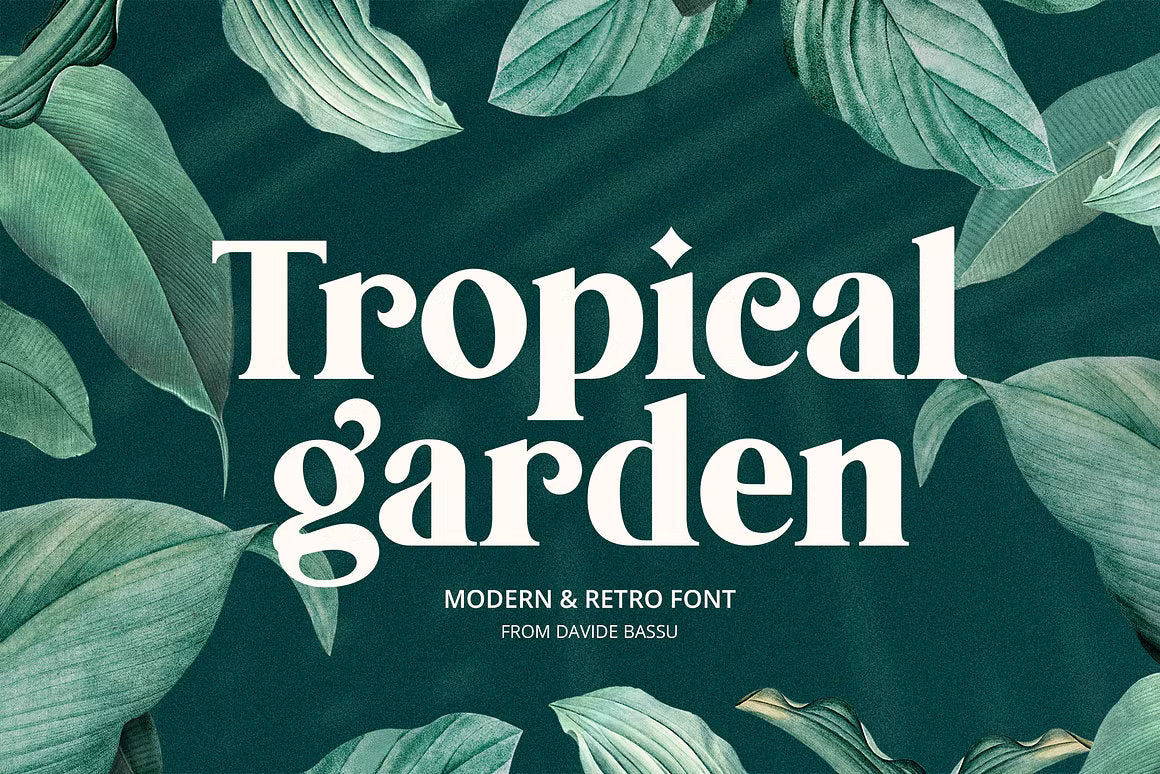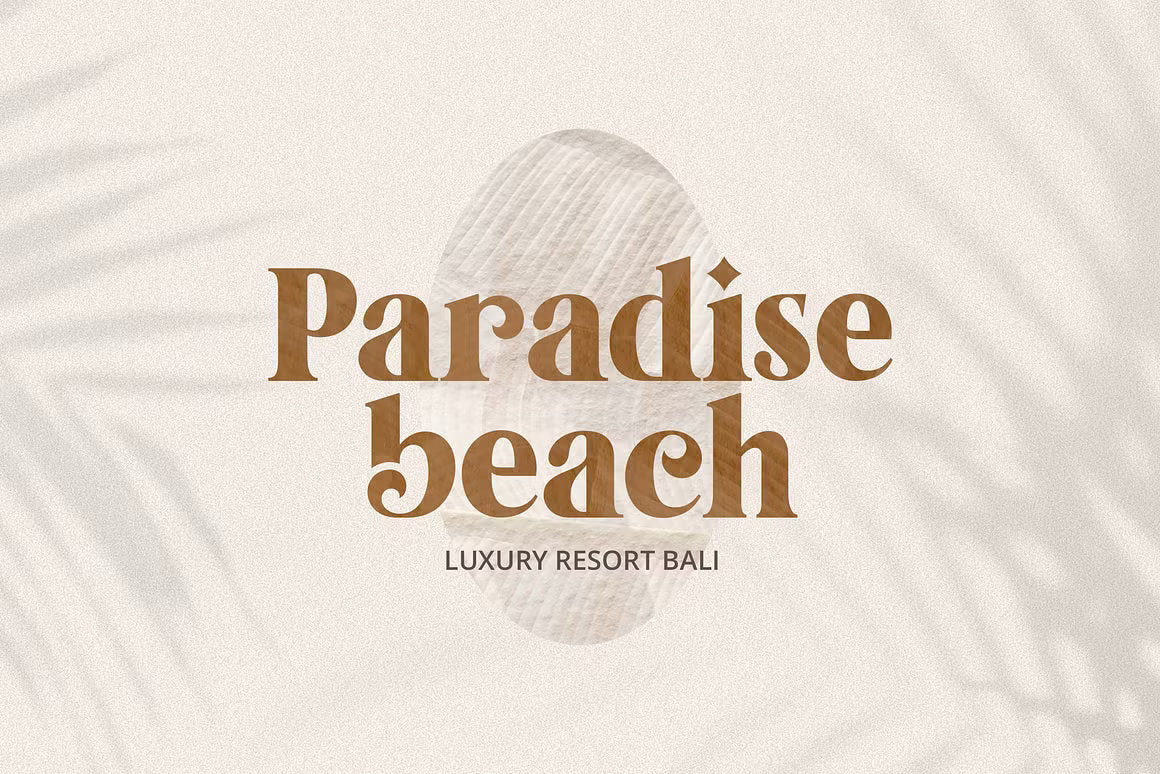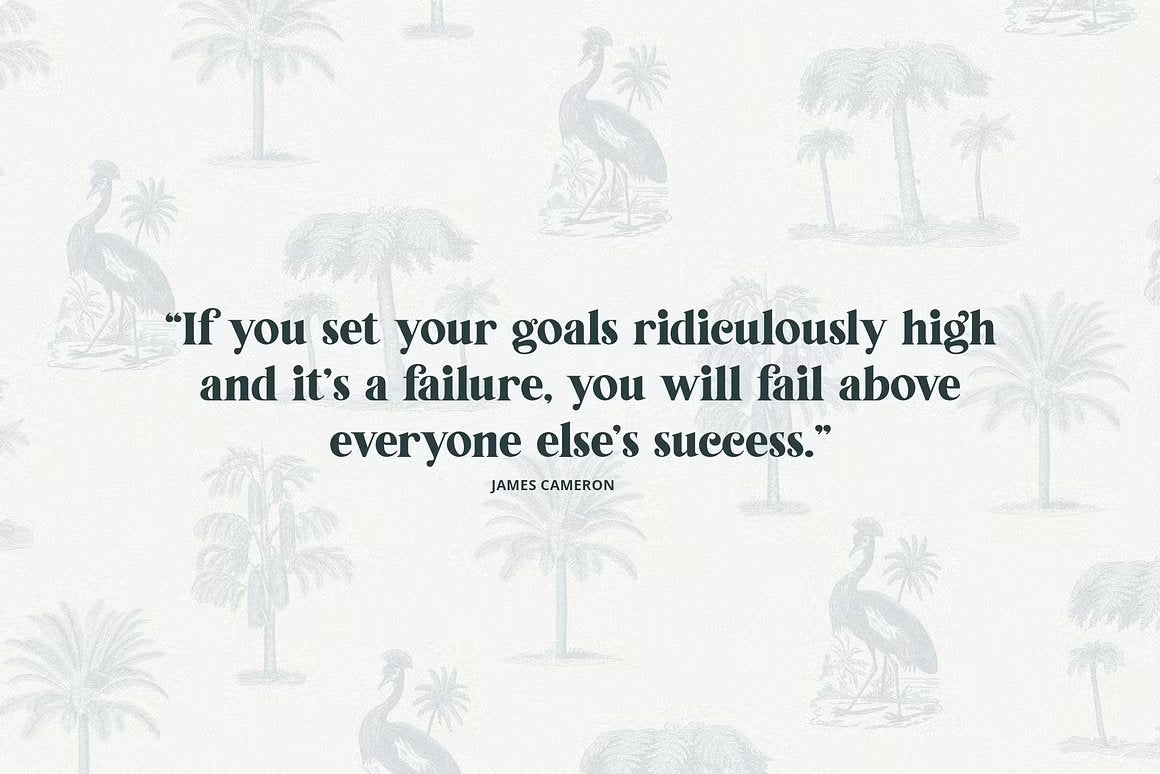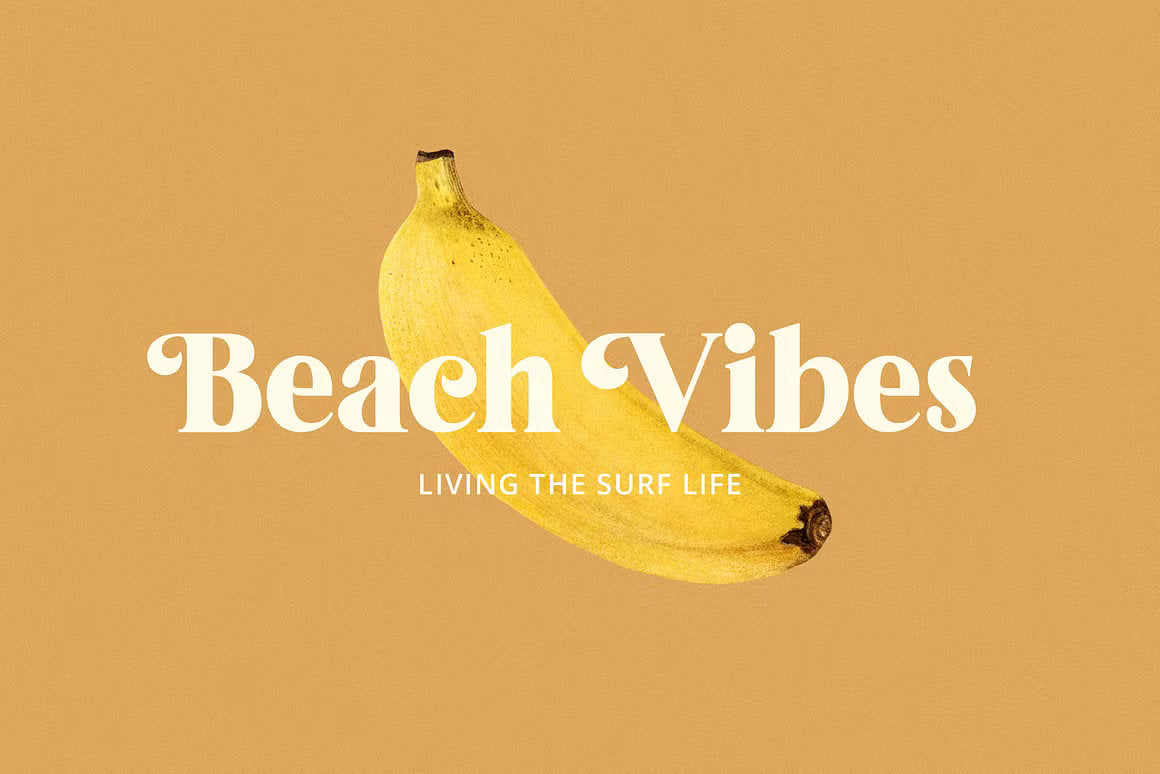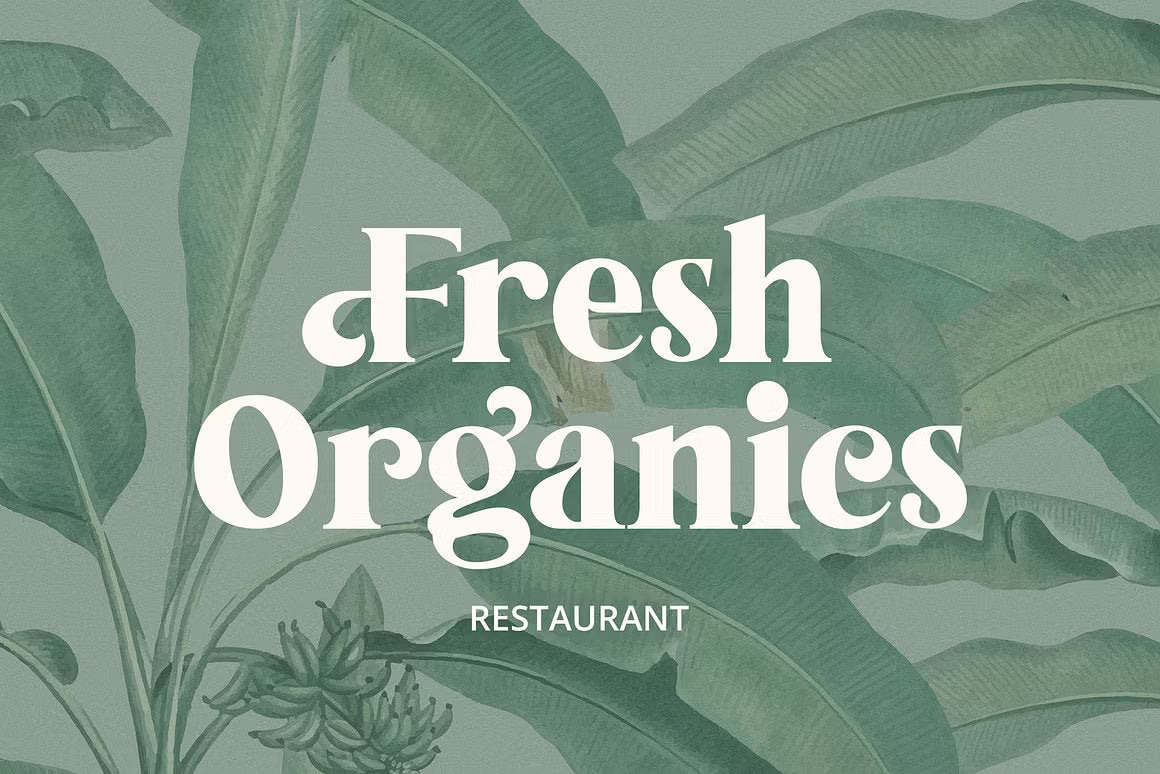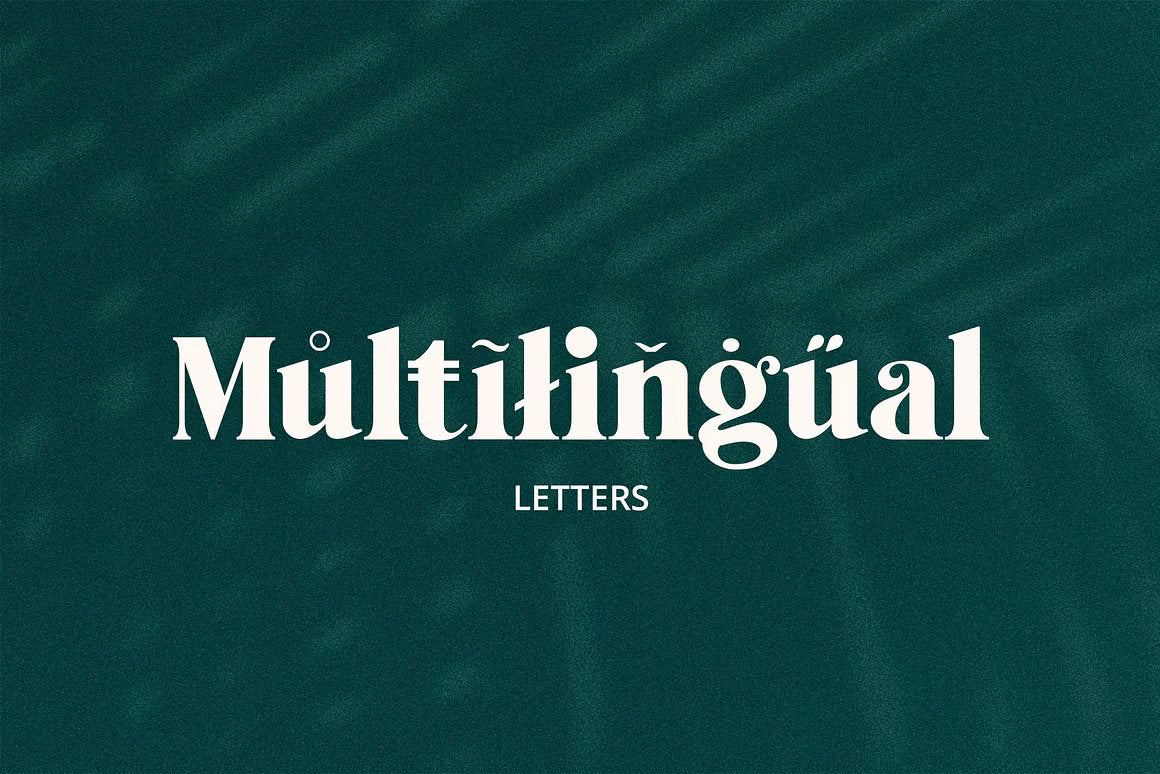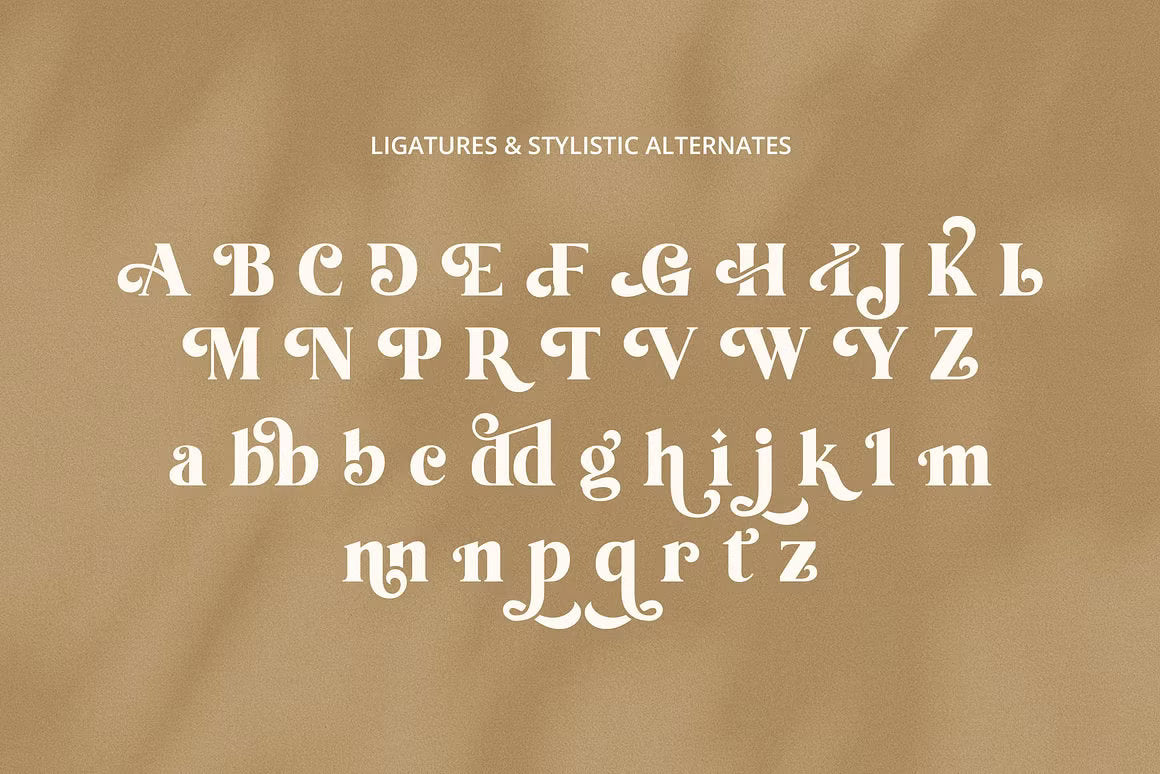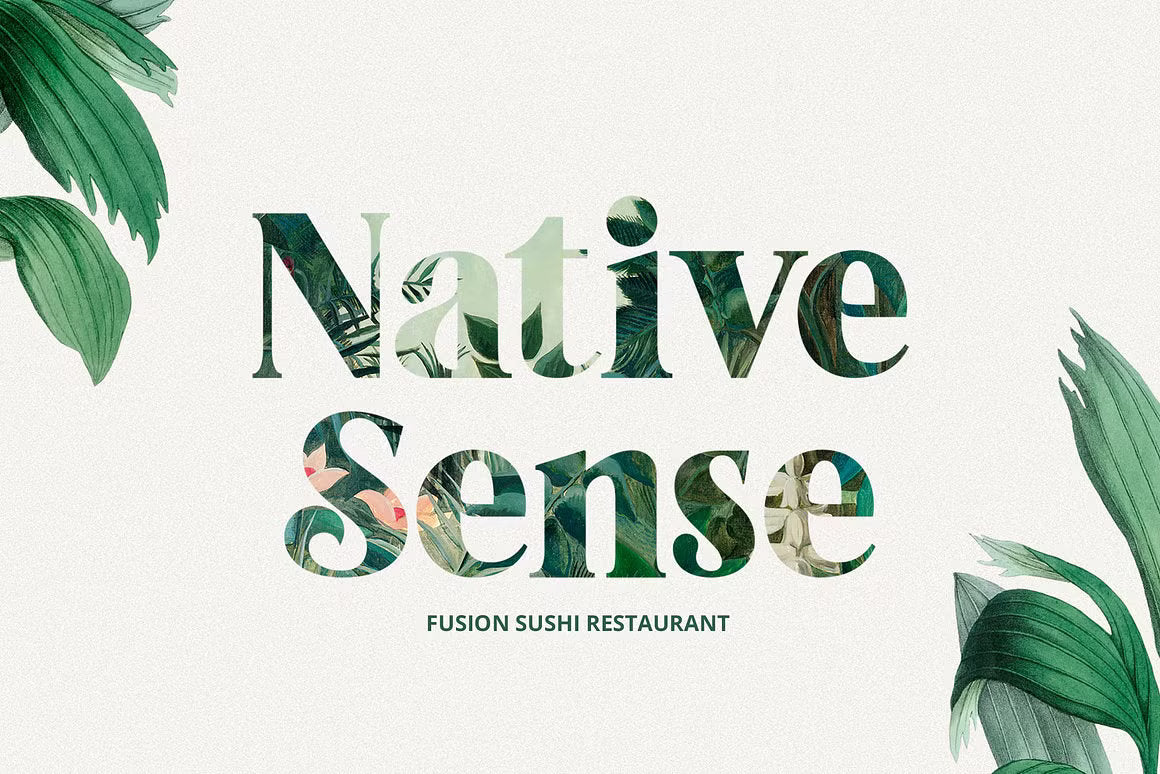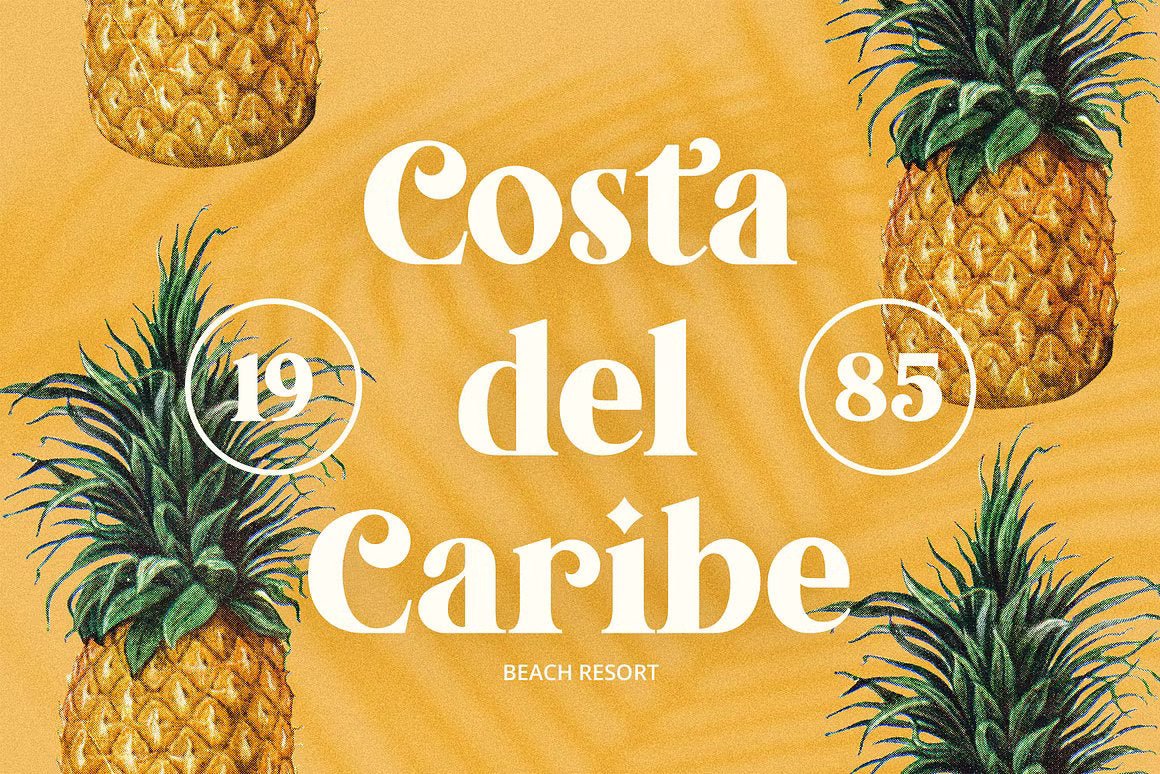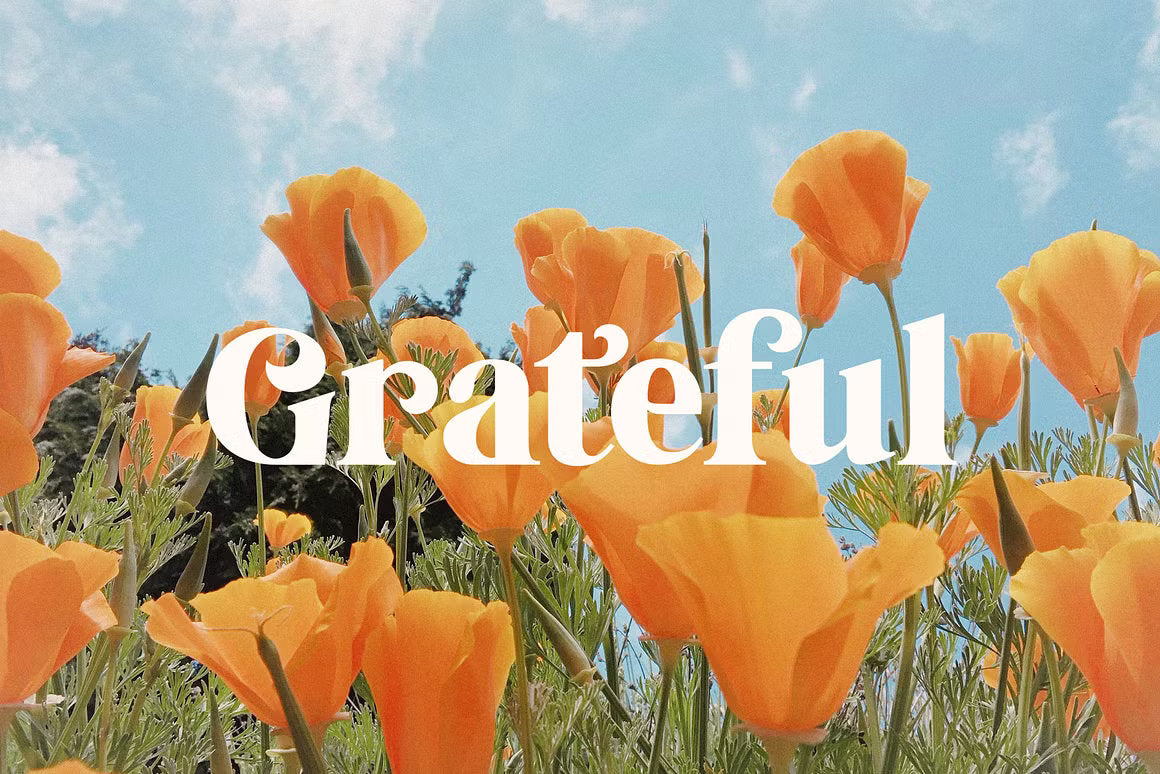
Tropical Garden – Elegant Serif Font
Tropical Garden is a sophisticated serif typeface that seamlessly blends classic charm with modern aesthetics. Featuring both uppercase and lowercase characters, this font showcases elegant, balanced curves and shapes, reminiscent of vintage design yet perfectly suited for contemporary projects.
With its old-fashioned style, Tropical Garden is versatile and adaptable, making it ideal for a wide range of design applications. Whether you're working on branding, wedding invitations, print materials, or social media graphics, this font adds a touch of timeless elegance to your creations.
Key Features:
Uppercase and Lowercase Letters: Provides flexibility and variety in your designs.
Stylistic Alternates: Offers multiple design options to enhance creativity.
Multilingual Support: Includes characters for Danish, English, Finnish, French, German, Italian, Luxembourgish, Norwegian, Portuguese, Spanish, Swedish, and Swiss German.